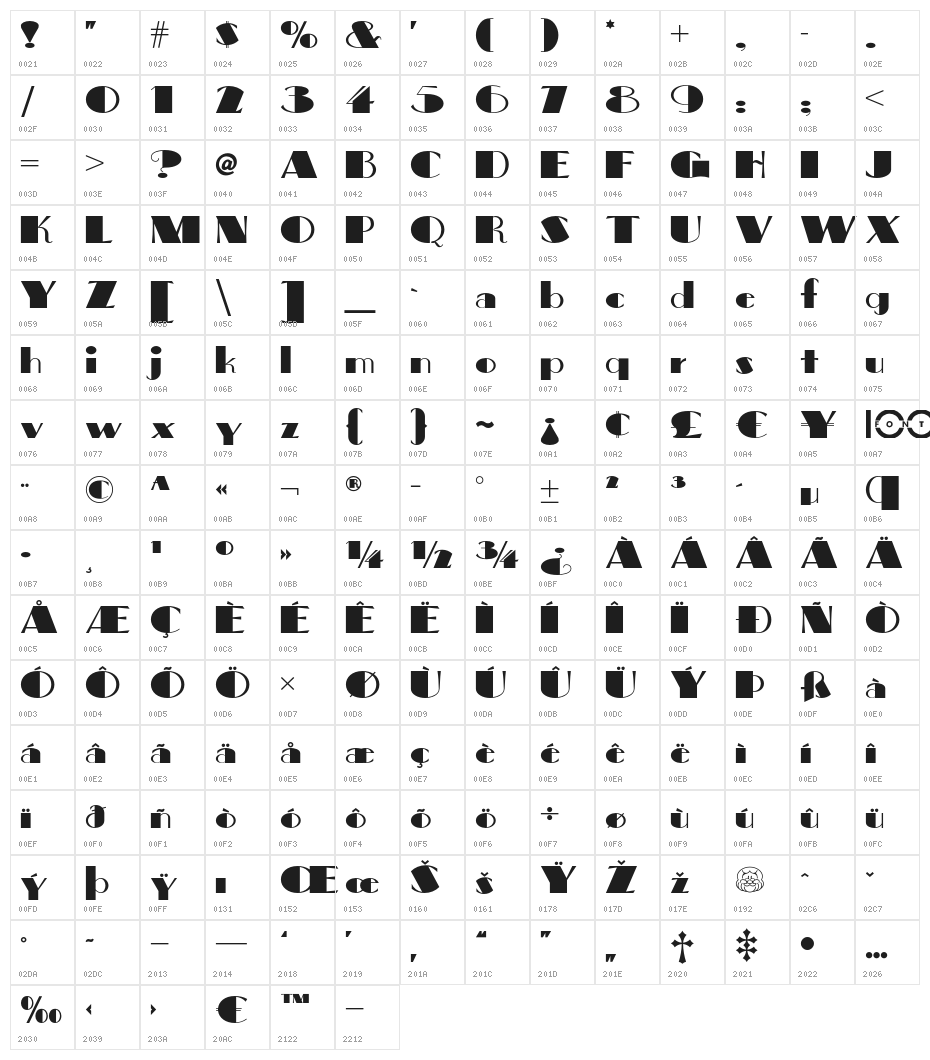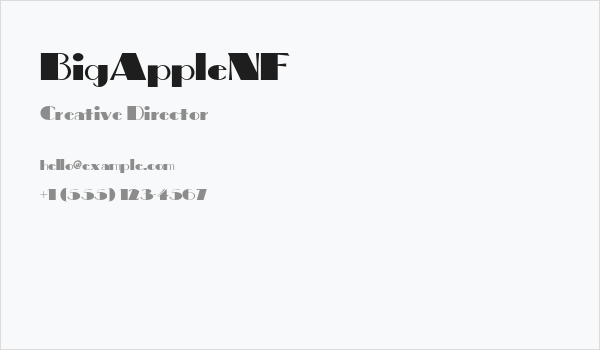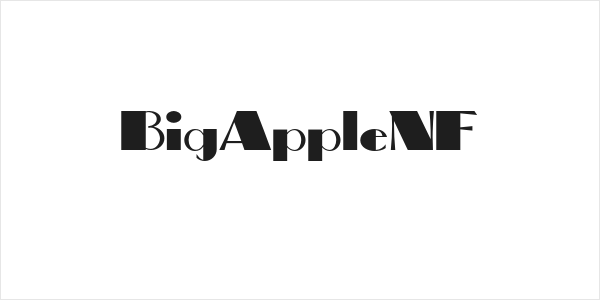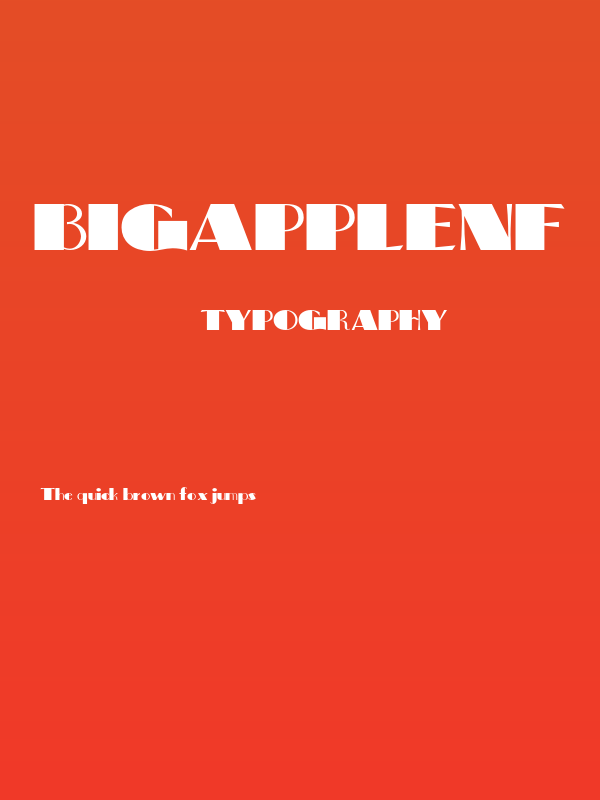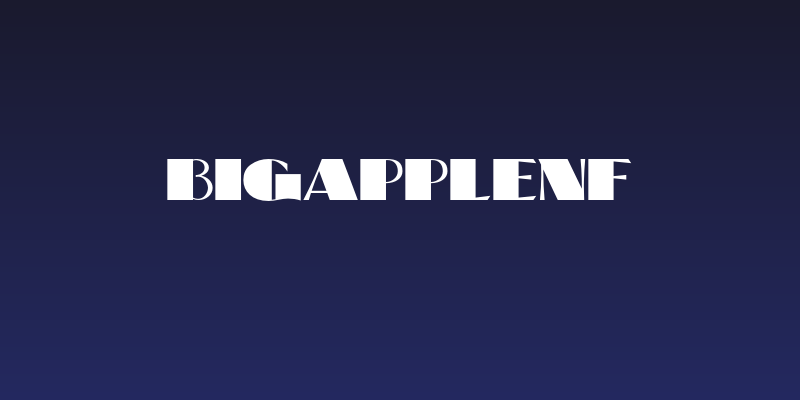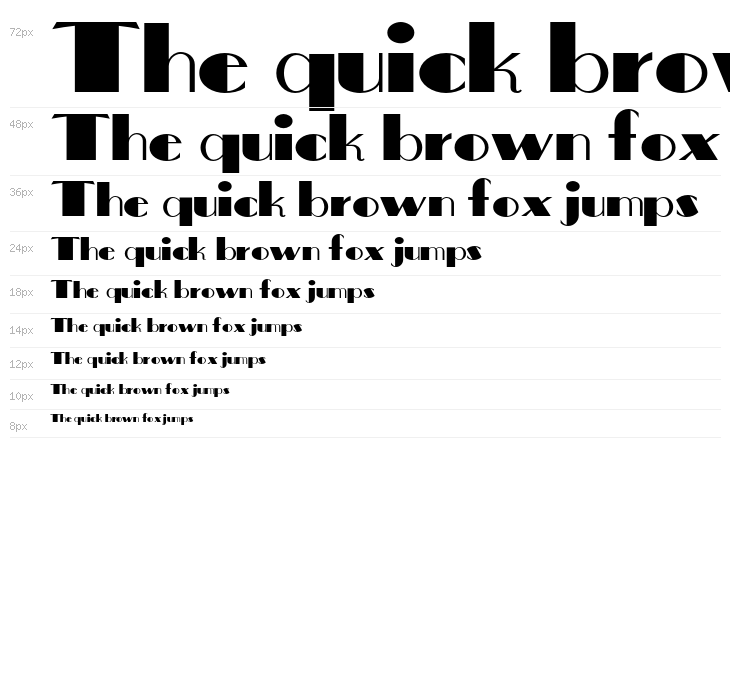
BigAppleNF Font
BigAppleNF Description
This font features a bold and striking design with a modern flair. The uppercase letters are characterized by thick, geometric shapes with high contrast between thick and thin strokes, giving them a dramatic and eye-catching appearance. The lowercase letters maintain a similar style, with a slightly more rounded and softer look, providing a nice balance to the overall design. The numerals are bold and consistent with the geometric theme, ensuring readability and impact. Special characters are designed to complement the overall aesthetic, maintaining the bold and modern feel. This font is ideal for projects that require a strong visual presence and a contemporary touch.